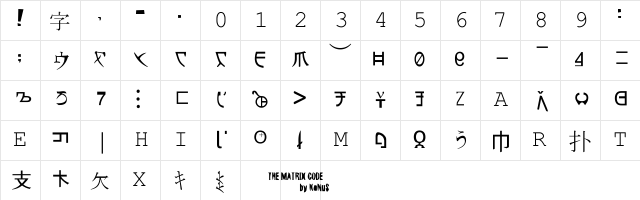
Matrix Code Regular
Designer: KoNuS ￿ 2003
Design Context for Matrix Code
Matrix Code uses fixed-width spacing throughout, giving it the structured, systematic character associated with coding environments and technical documentation.
Pro Tip: Use Matrix Code with slightly increased line-height for extended reading - fixed-width spacing can feel dense in longer passages without extra breathing room.